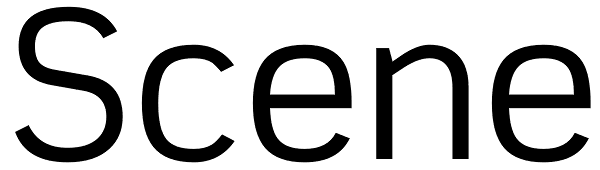
Scene
Work on Scene began some time after designer Sebastian Lester joined Monotype Imaging in 2000. Clean, calm, and highly legible — thus the design brief Lester set for himself. With Scene, he wanted to provide graphic designers and creative directors...